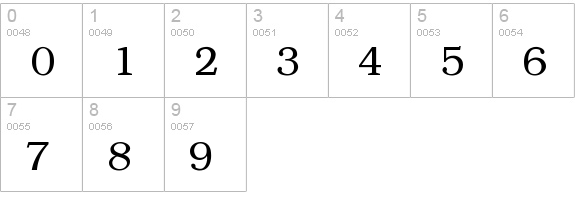
Angleterre Book - DGL Font Details
Angleterre Book - DGL is a comfortable, highly readable variant in the Angleterre typeface family \xE2\x80\x94 well suited to long-form body text, articles, and editorial content.
Angleterre Book - DGL font is a classic and elegant typeface that exudes sophistication and timeless beauty. With its delicate serifs and graceful letterforms, this font is perfect for adding a touch of refinement to any project. Whether you're designing a wedding invitation, a branding project, or a magazine layout, Angleterre Book - DGL font will elevate your design with its understated charm. The best part? Angleterre Book - DGL font is available for free download at FontsMarket.com. Yes, you read that right - you can enhance your design with this stunning font without spending a dime. So why wait? Download Angleterre Book - DGL font today and add a touch of elegance to your next project.